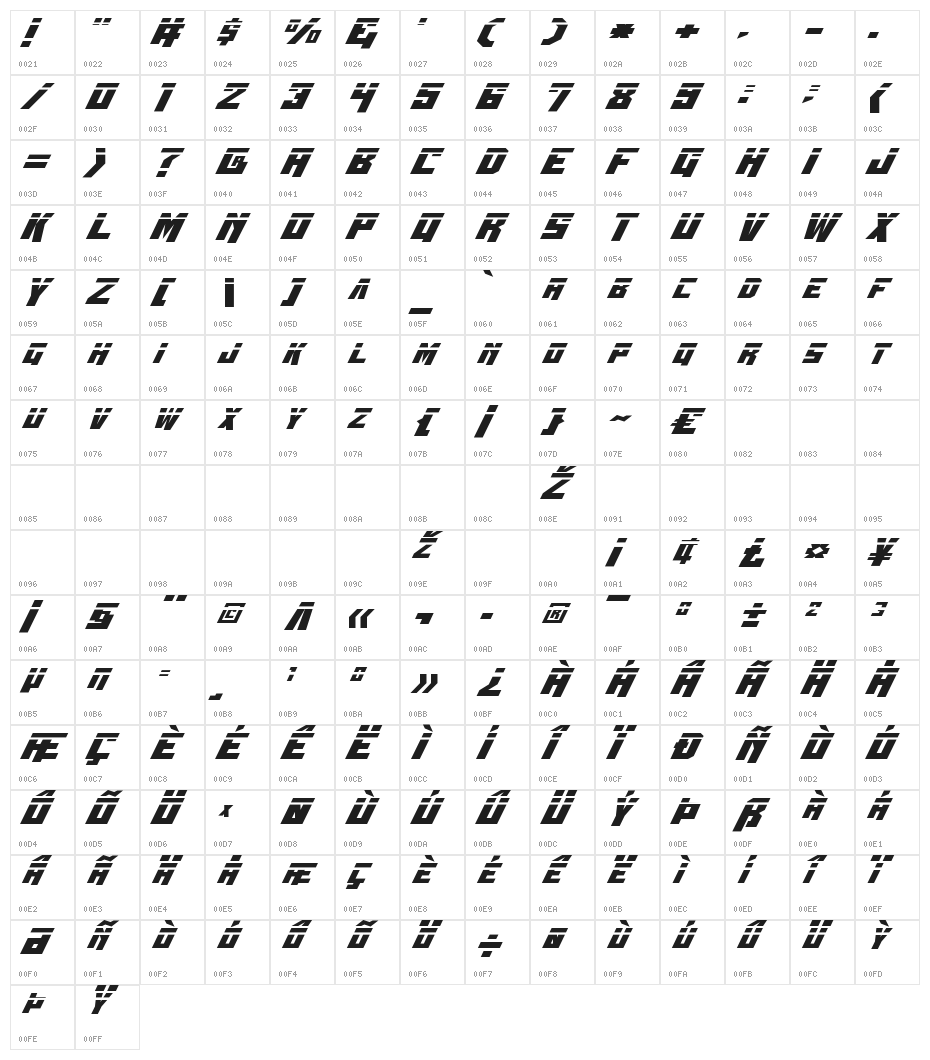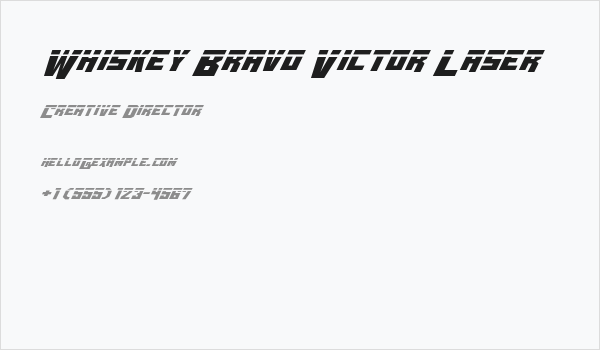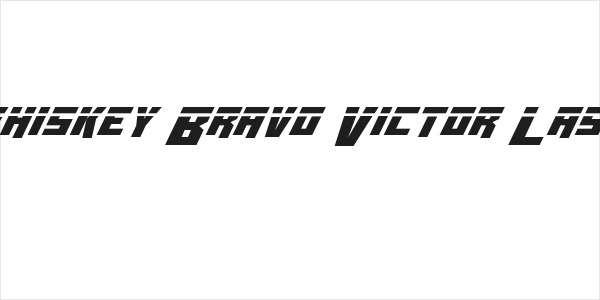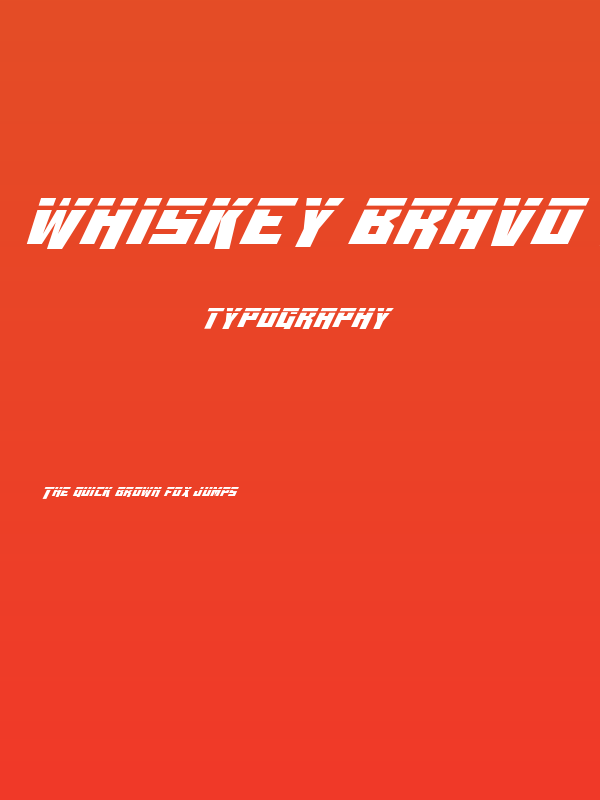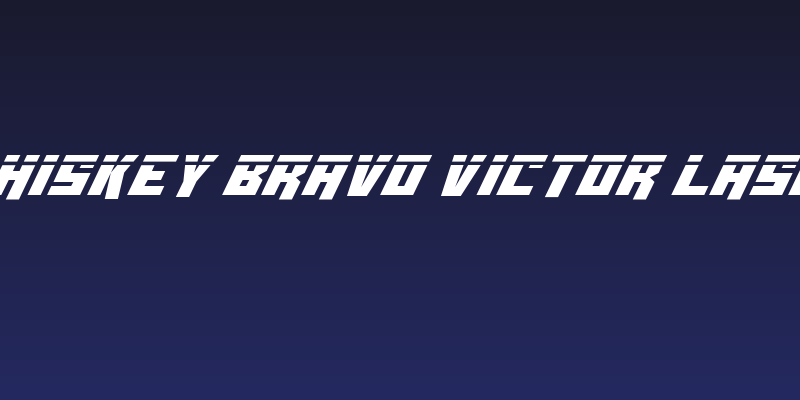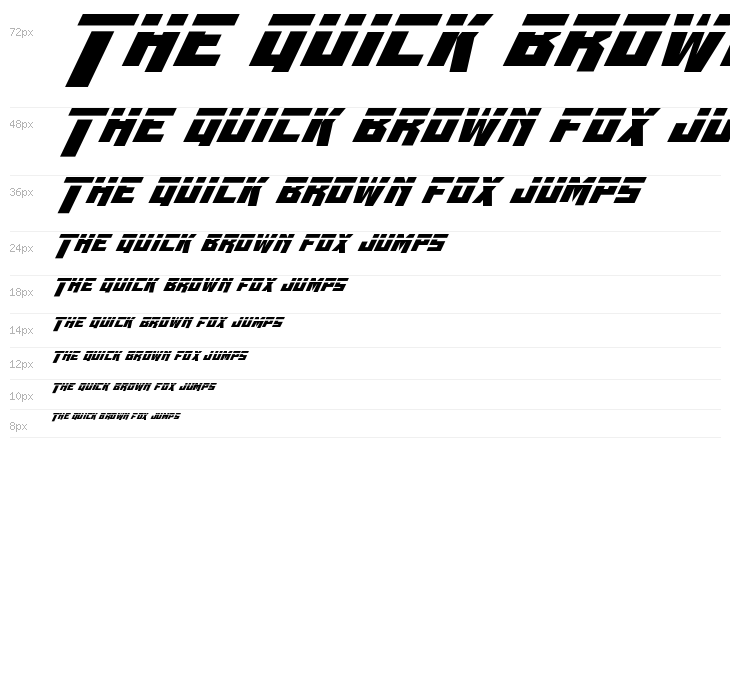
Whiskey Bravo Victor Laser Font
Whiskey Bravo Victor Laser Description
This font features a bold, angular design with a futuristic and dynamic appearance. The characters are sharply cut with a distinct geometric style, giving them a sense of motion and energy. The uppercase letters are particularly striking, with a consistent slant that adds to the overall forward-leaning aesthetic. The numerals and special characters maintain this angular theme, ensuring a cohesive look across all glyphs. The font's strong presence makes it ideal for attention-grabbing designs.
| Proposed Projects | Ideal for sci-fi themed posters, video game titles, sports branding, and dynamic logo designs. |